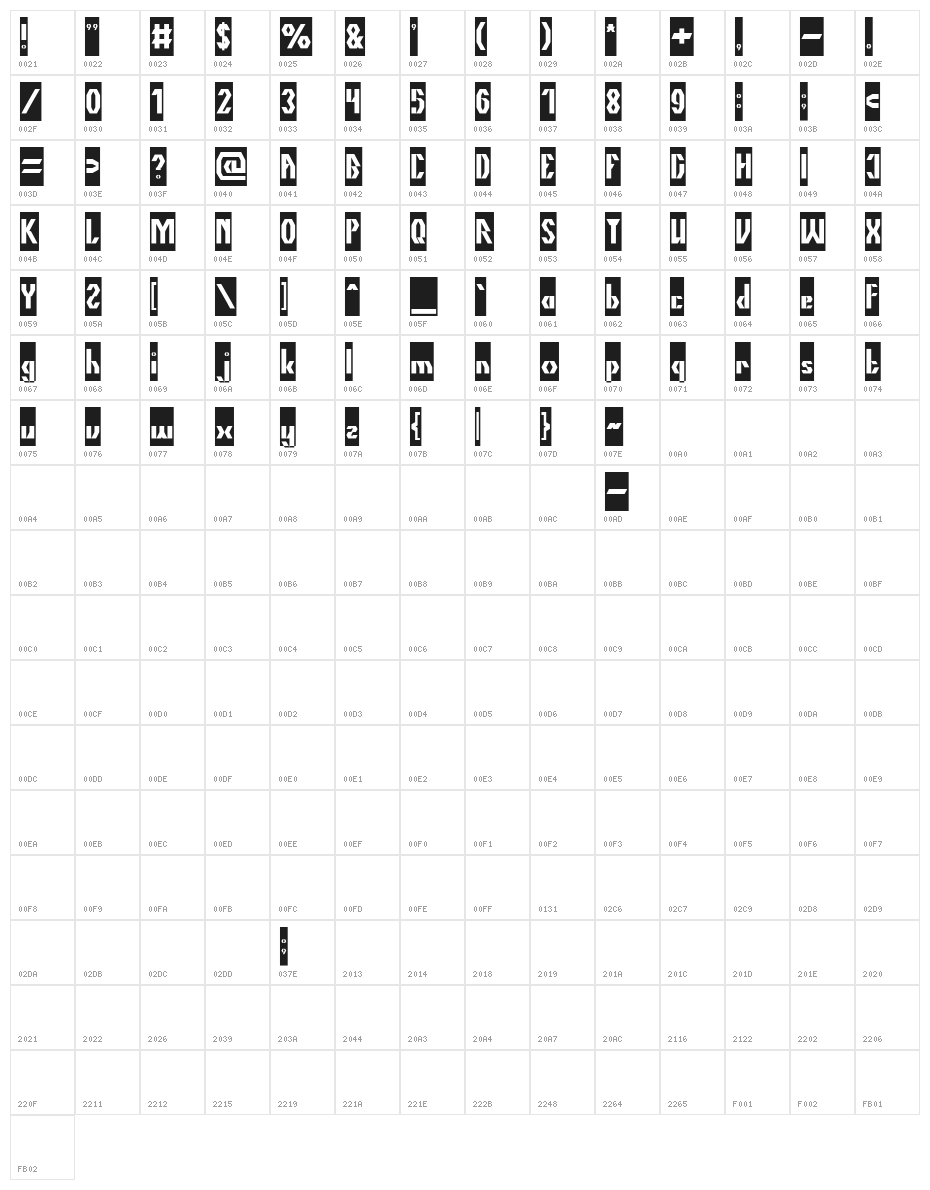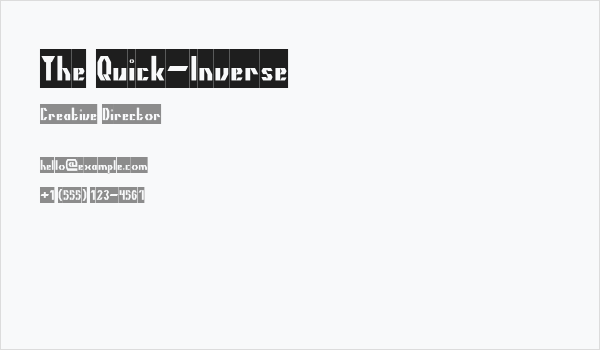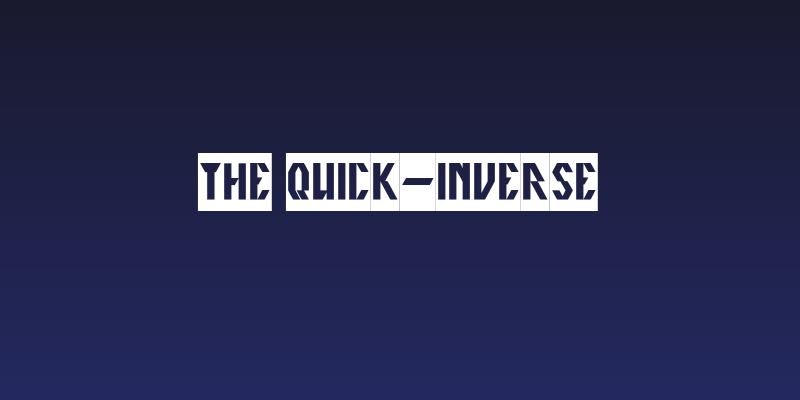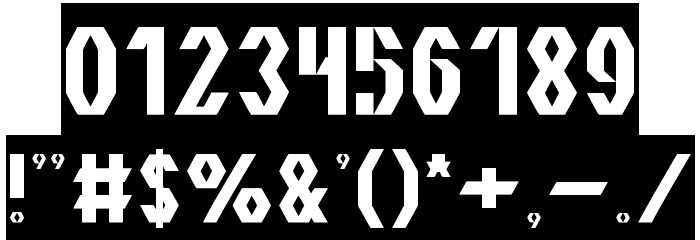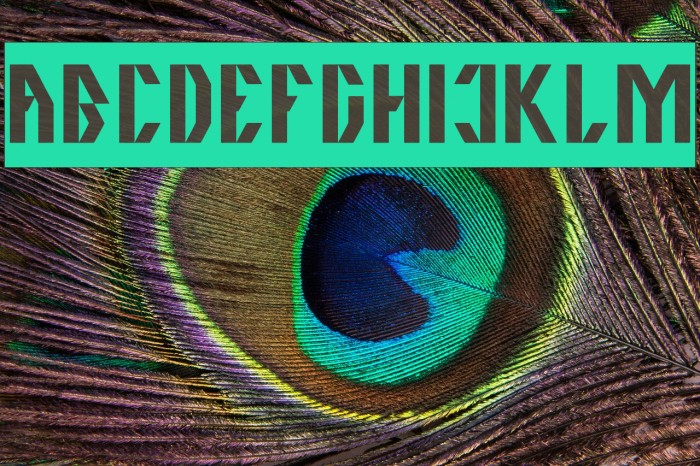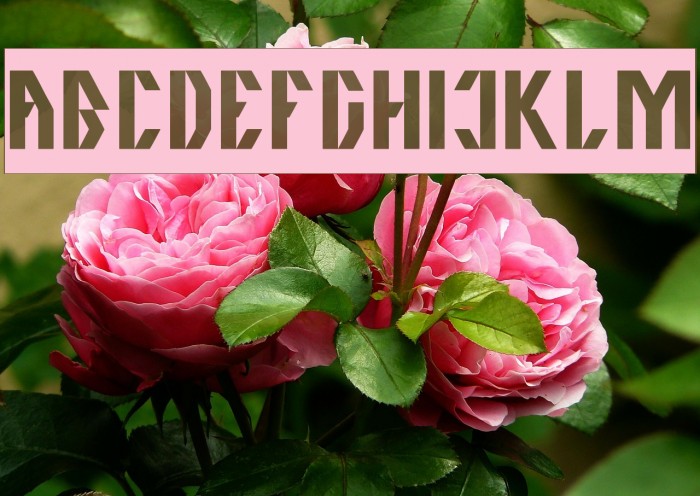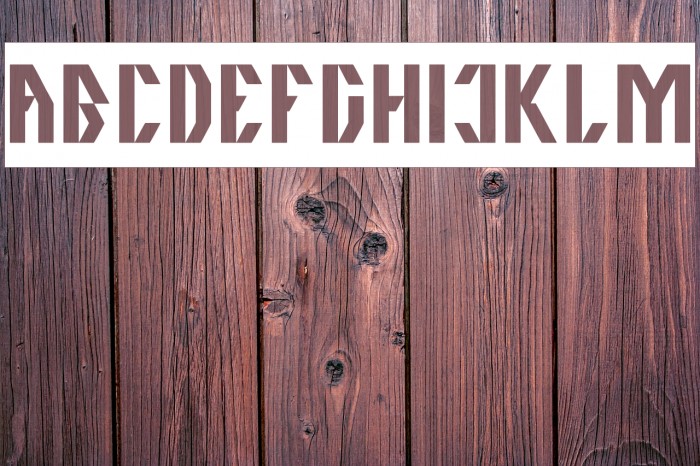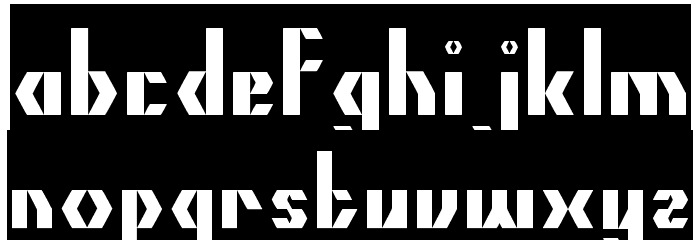
The Quick-Inverse Font
The Quick-Inverse Description
This font features a bold and geometric design with sharp angles and a futuristic aesthetic. The characters are constructed with a mix of thick and thin strokes, creating a high contrast that enhances readability while maintaining a unique style. The uppercase and lowercase letters share a consistent angular theme, with distinctive cuts and slants that give the font a dynamic and edgy appearance. Numbers and special characters follow the same design principles, ensuring a cohesive look across all text elements. This font is particularly striking in larger sizes, where its intricate details can be fully appreciated.